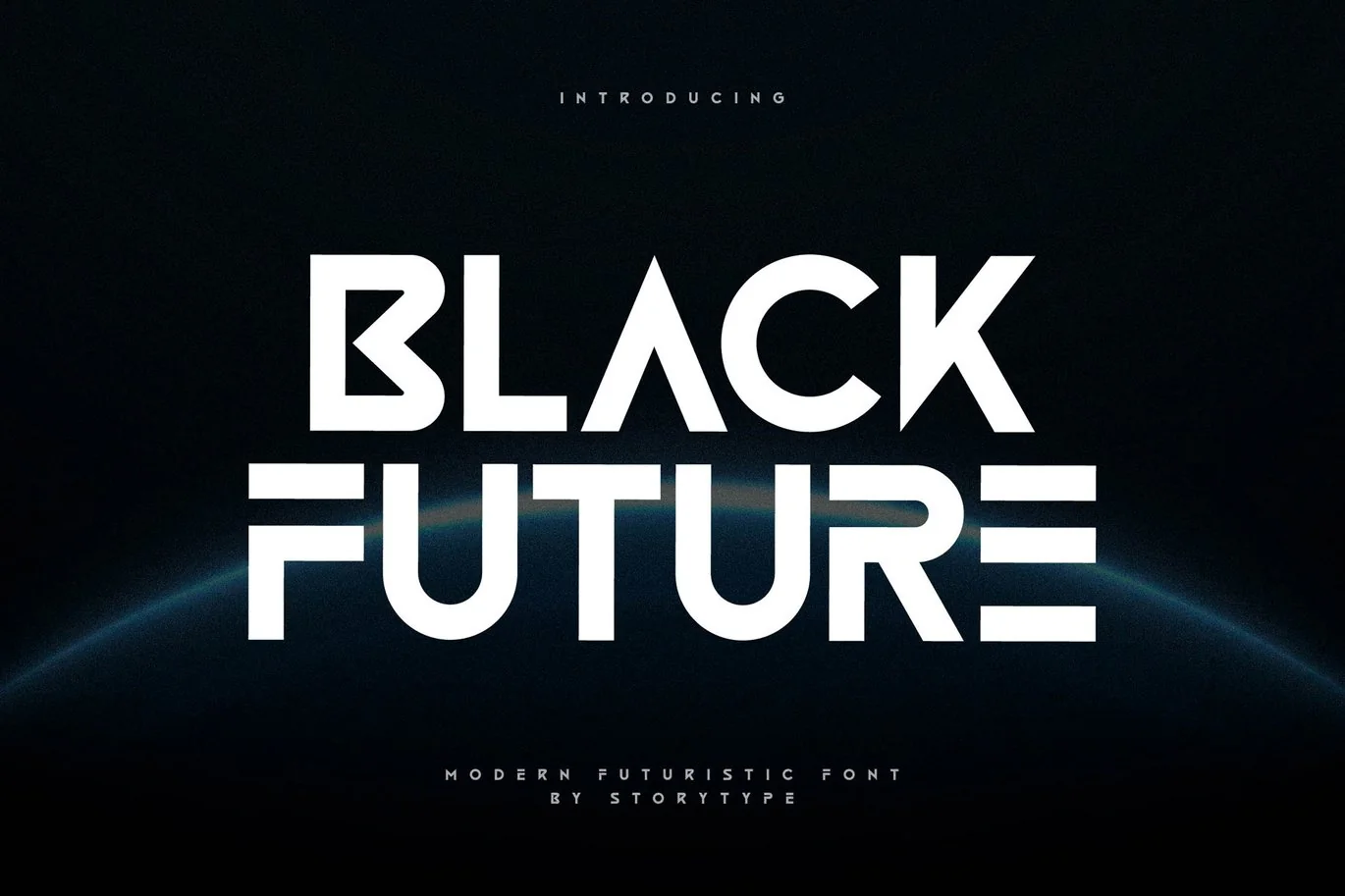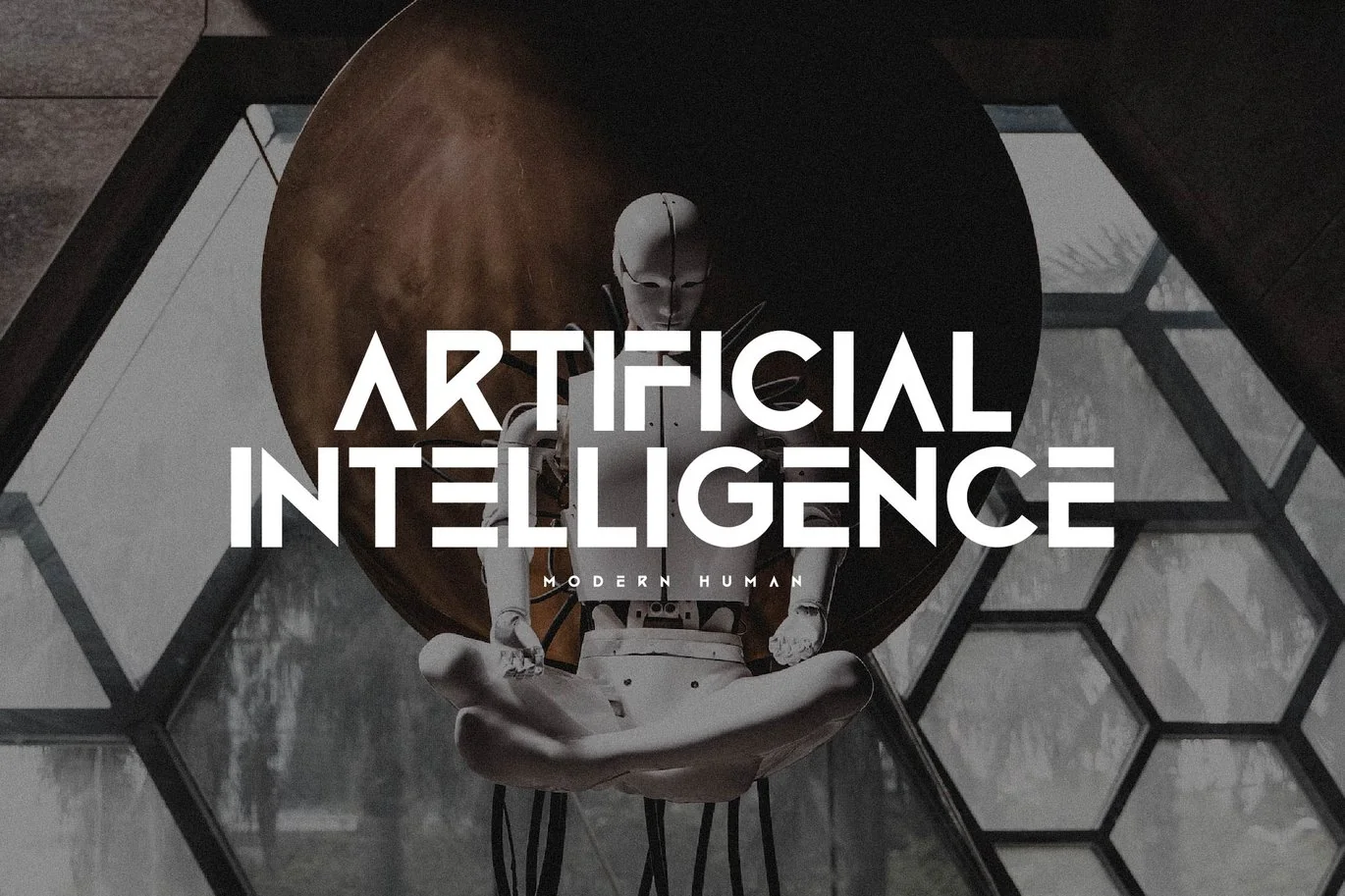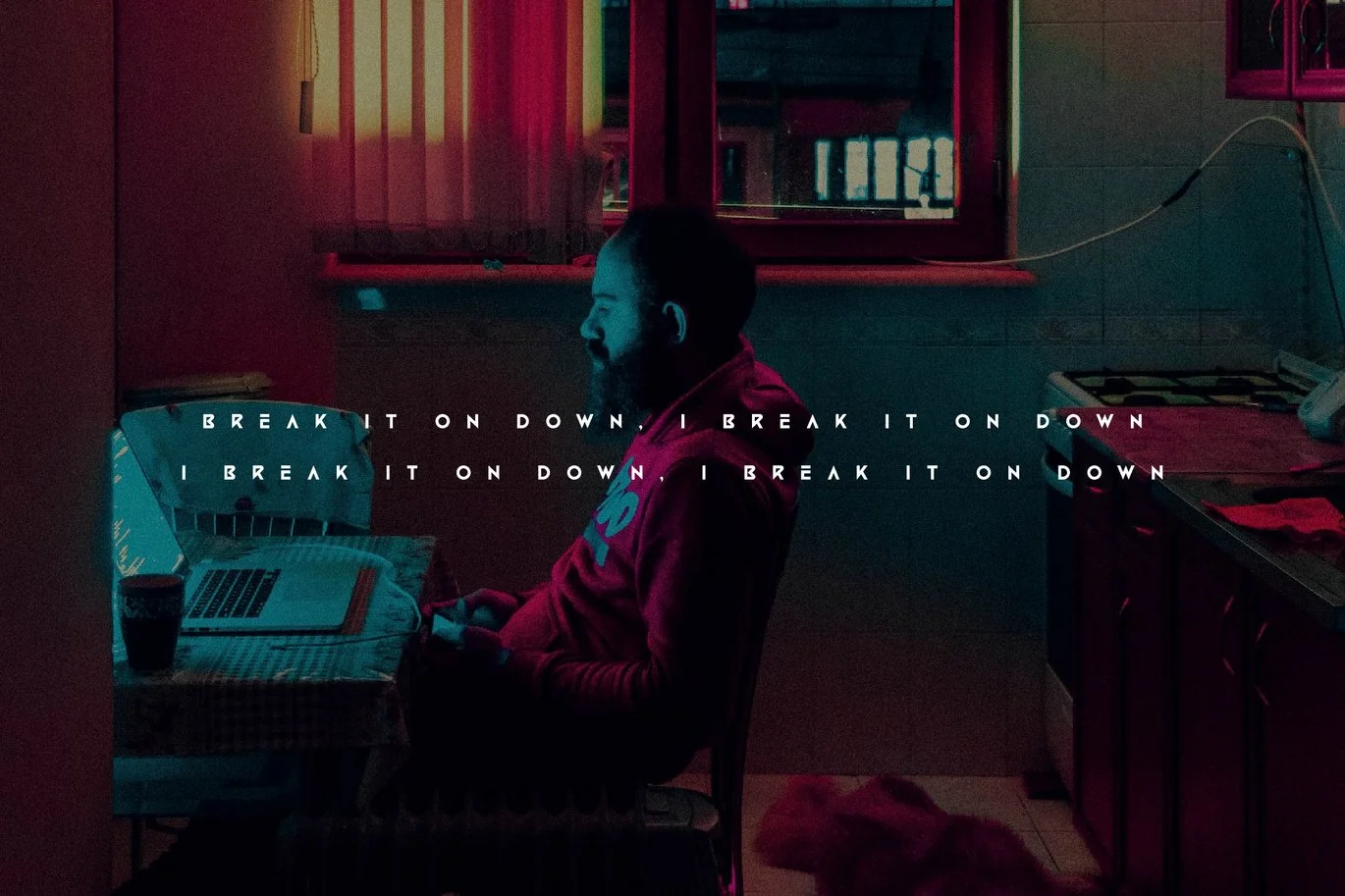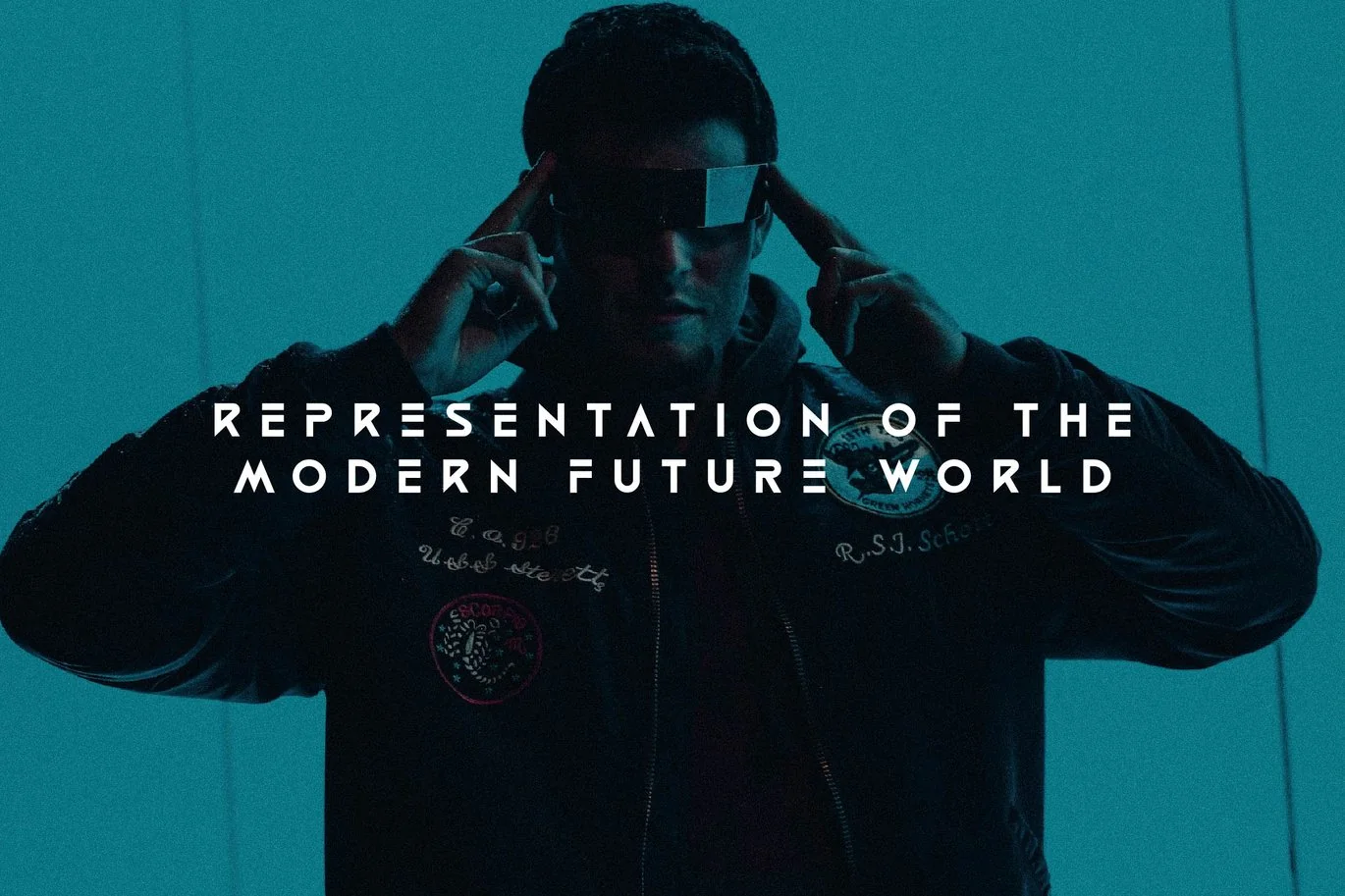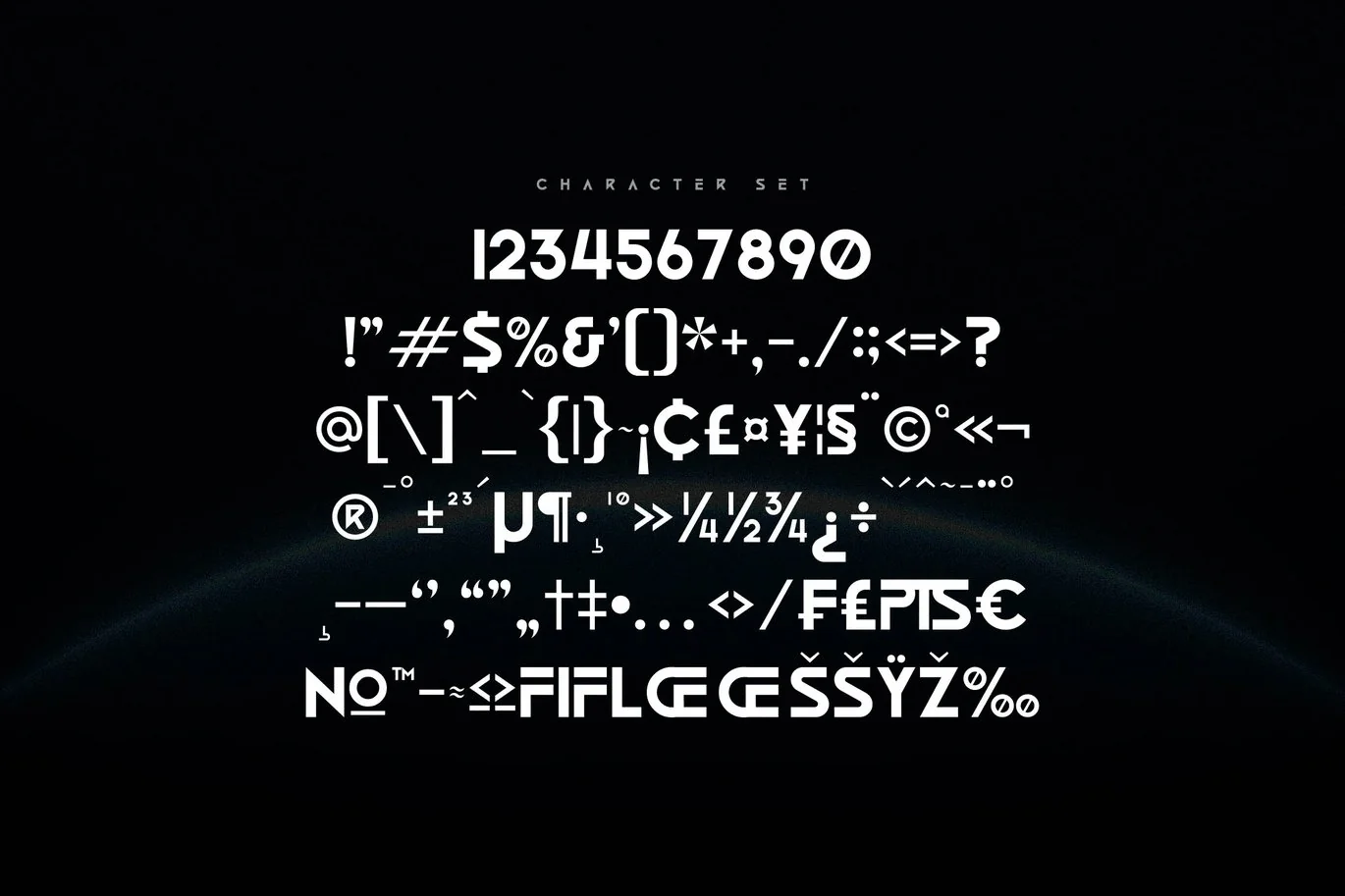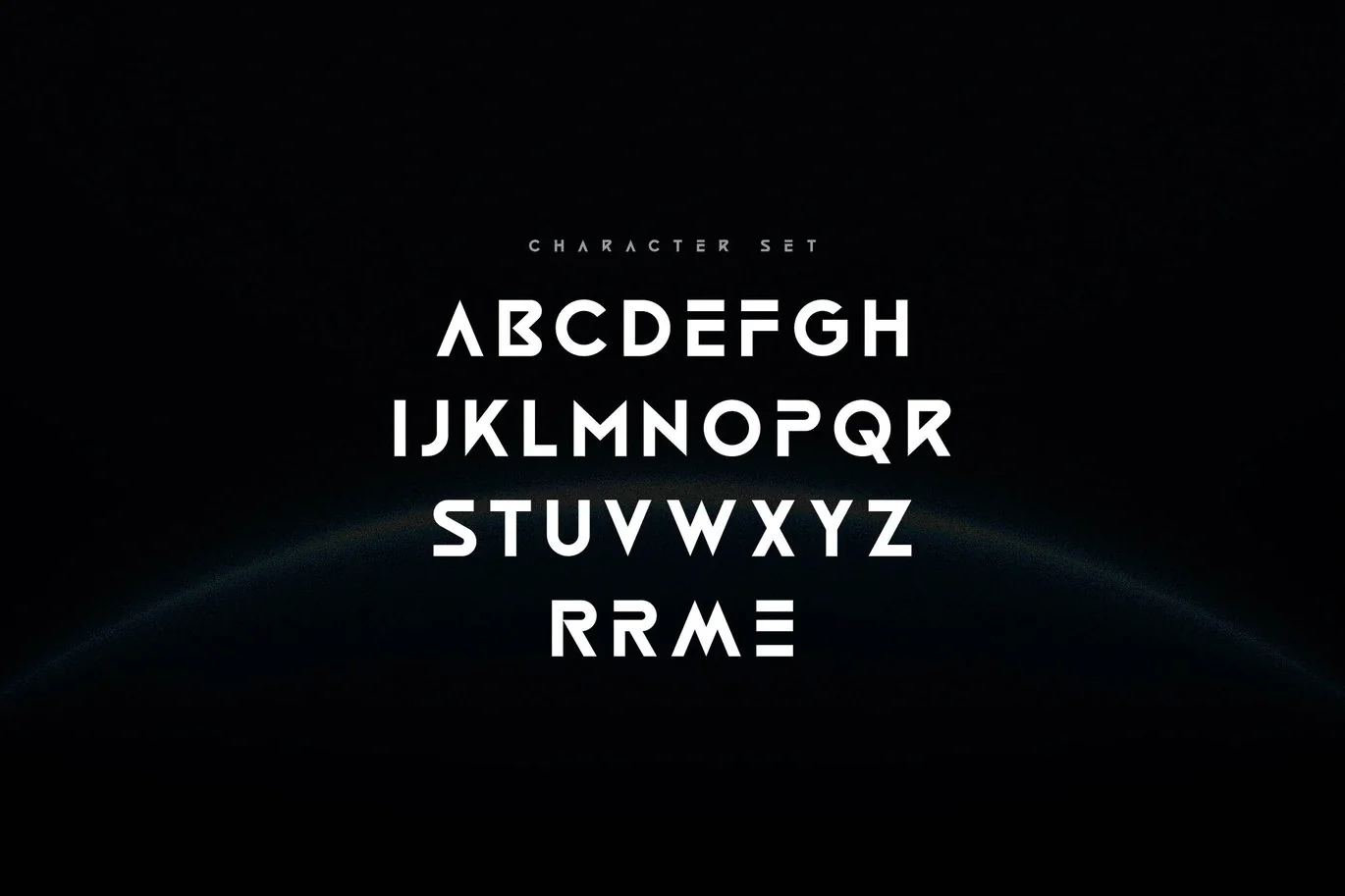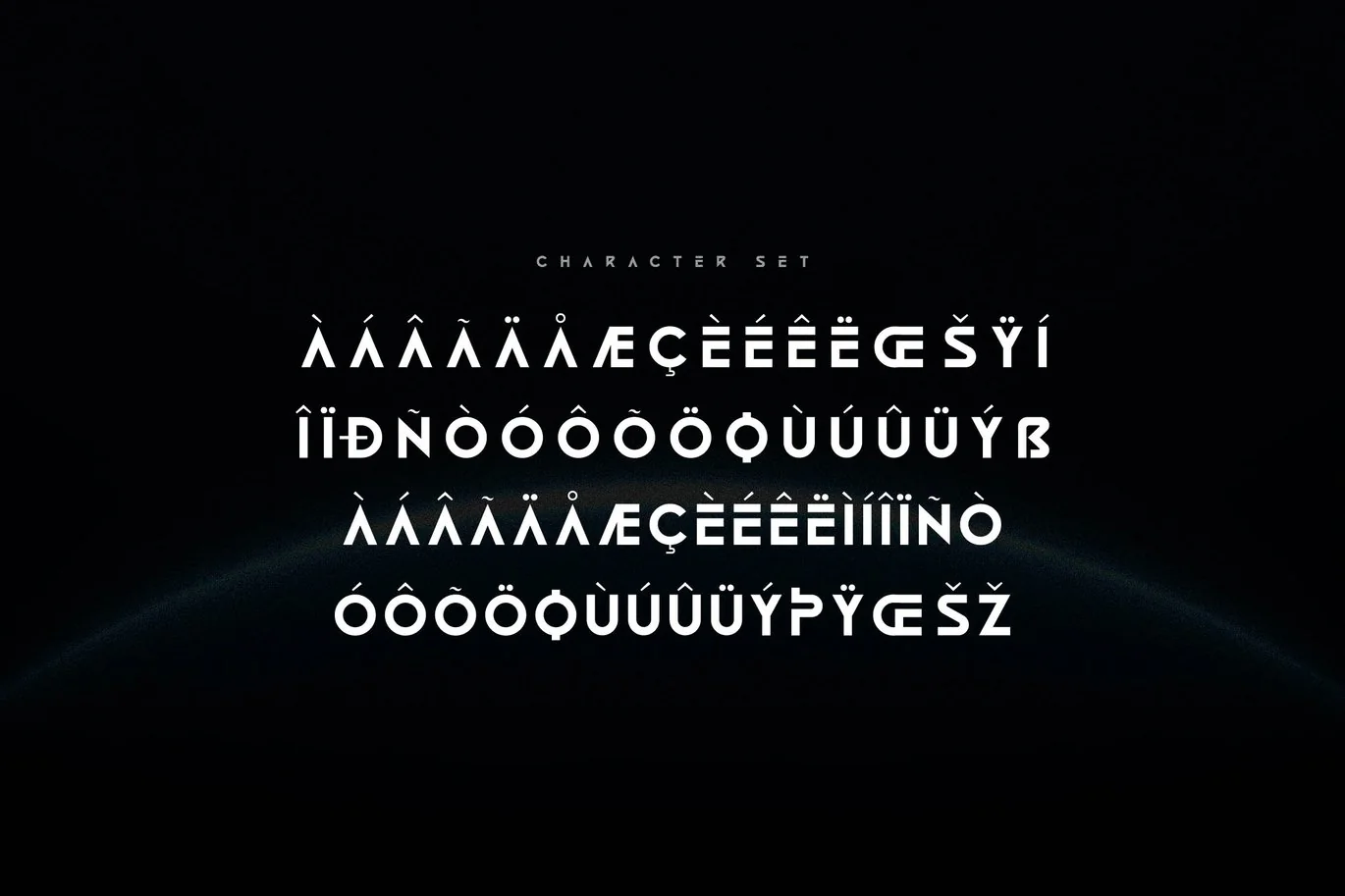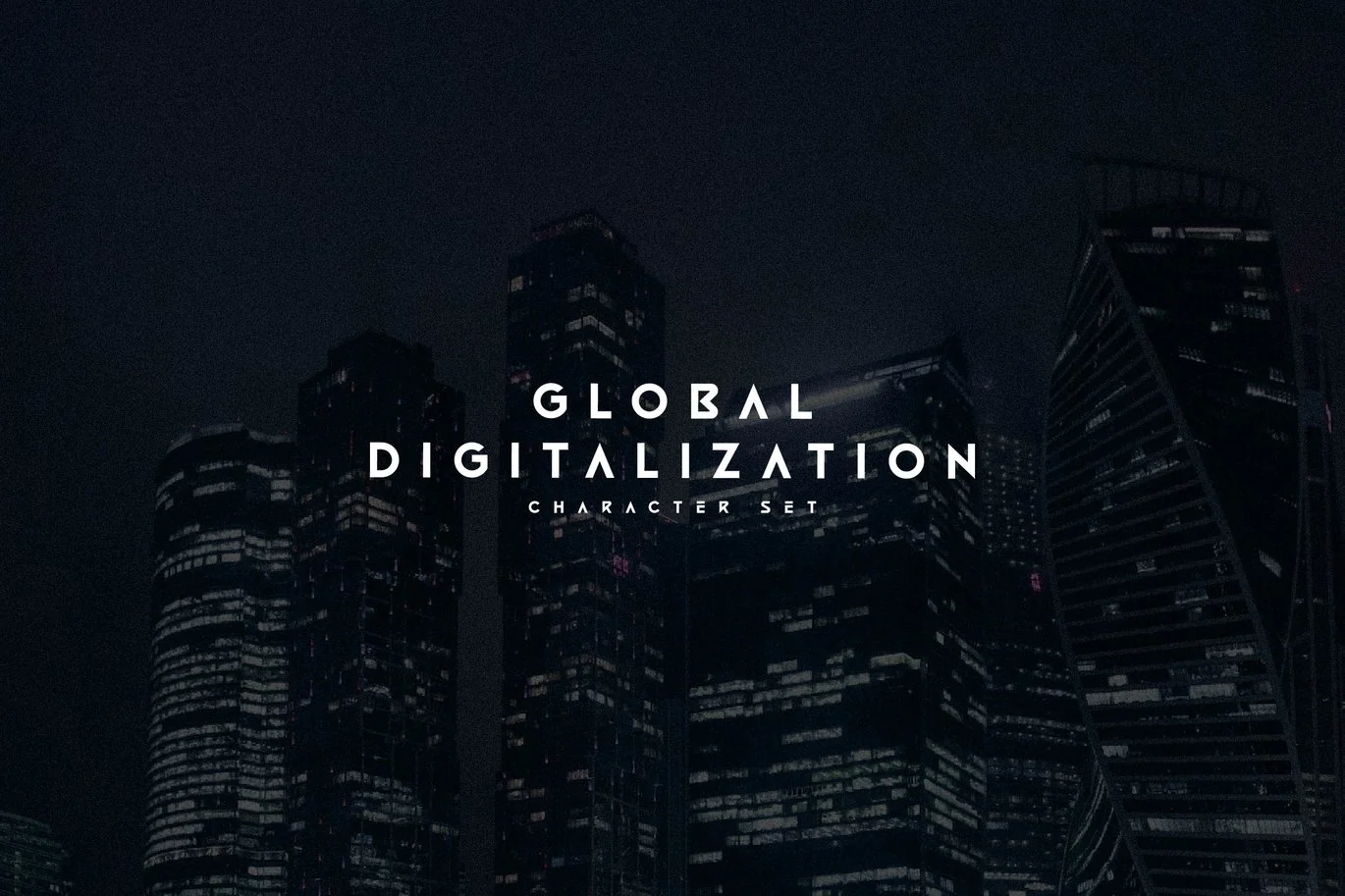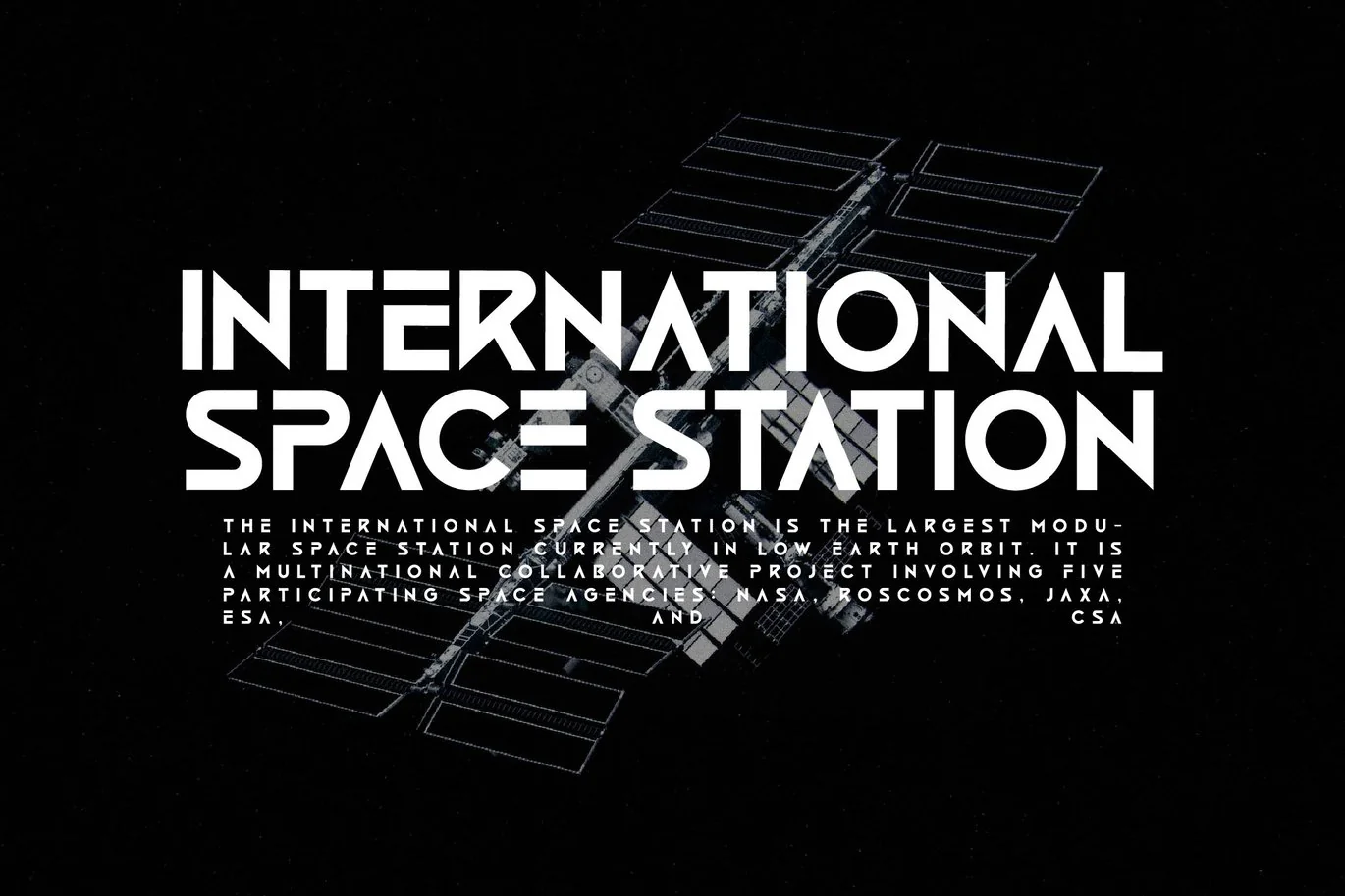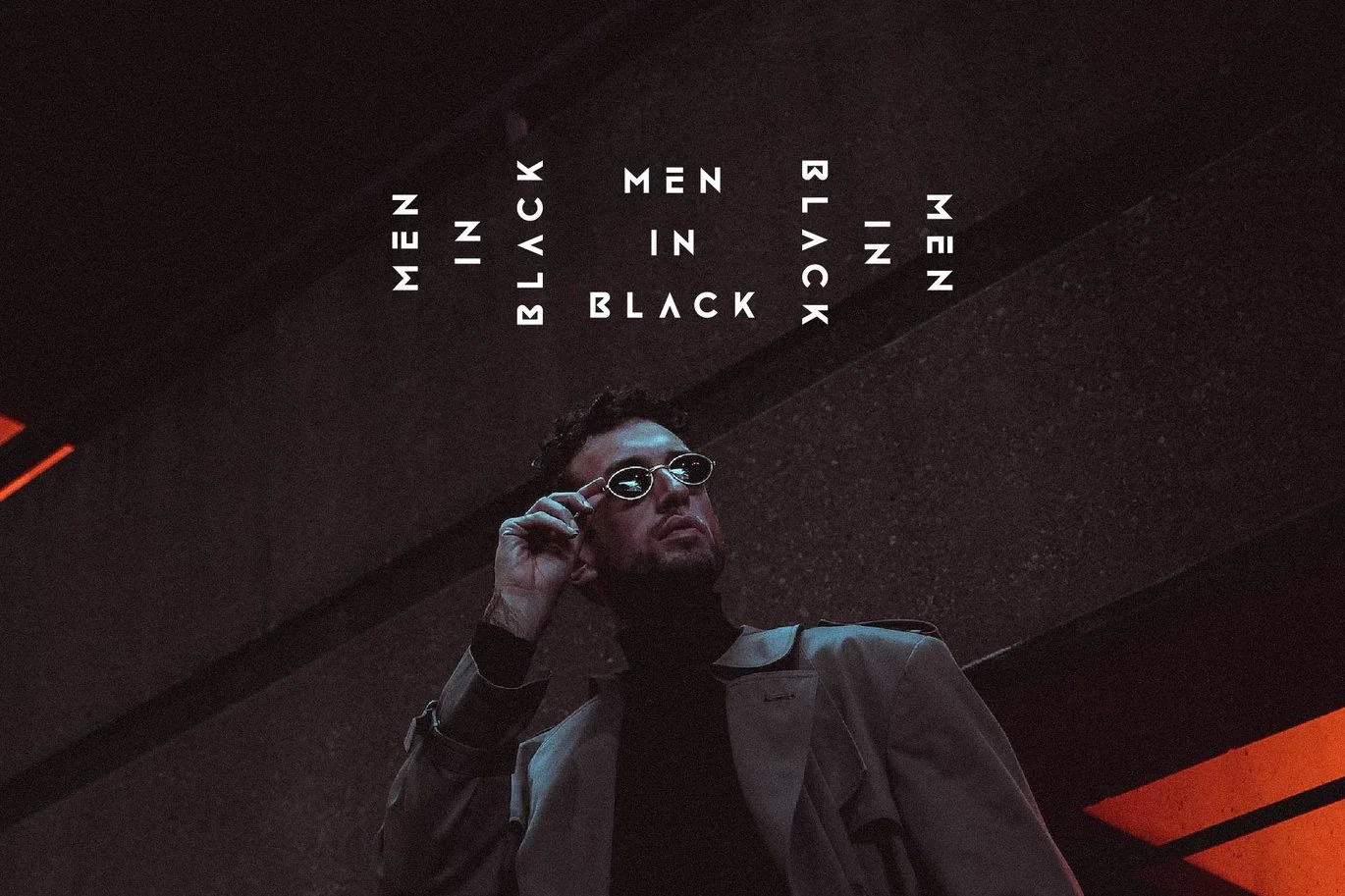
Black Future – Modern Futuristic Font
Black Future is a modern futuristic font designed to bring a sleek and high-tech look to your projects. With its bold and geometric style, this font is ideal for sci-fi themes, gaming interfaces, technology branding, and digital media. Whether you’re creating eye-catching headlines or immersive designs, Black Future delivers a strong visual impact with its innovative letterforms.
- Futuristic & Bold Style – Perfect for tech, sci-fi, and cyber-inspired designs
- Geometric & Clean Letterforms – Ensures readability while maintaining a modern look
- Versatile Usage – Ideal for branding, posters, digital media, gaming, and UI/UX
- Multilingual Support – Includes a range of international characters
- Complete Character Set: Uppercase letters, numerals, punctuation